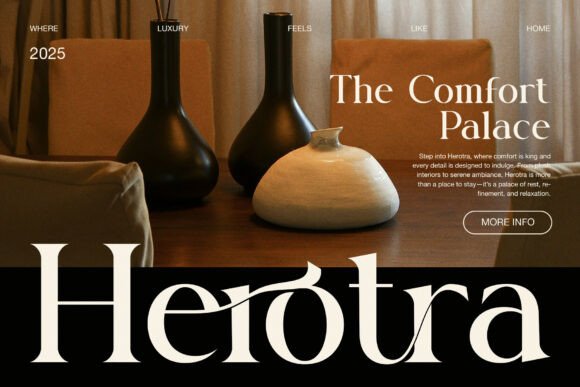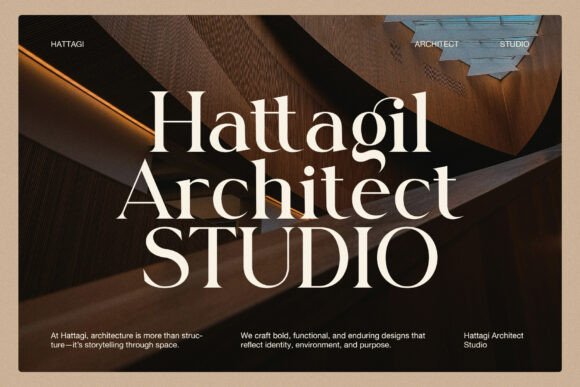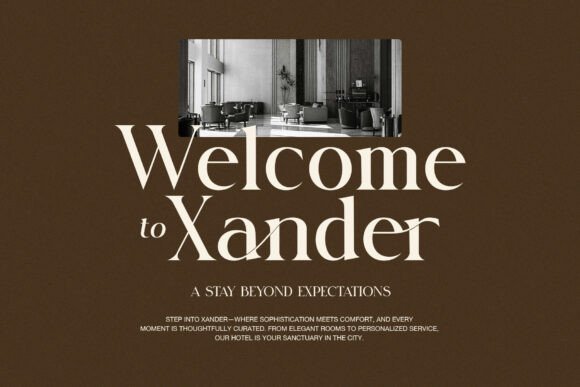
Gitrong Font
Introducing **Gitrong Elegant Serif Font**, a sophisticated and modern serif typeface that brings elegance and uniqueness to any design. With its meticulously crafted letterforms and graceful serifs, Gitrong effortlessly merges classic charm with contemporary appeal, making it the perfect choice for projects that demand both style and clarity.Whether you’re designing a standout **logo**, curating a high-end **brand identity**, or enhancing a **website**, Gitrong adds a touch of luxury and professionalism. Its versatile design makes it ideal for **magazines**, **advertisements**, and **product packaging**, where its elegant curves and strong structure command attention without compromising readability.Gitrong shines in the world of **fashion**, **boutiques**, and **luxury products**, where every detail counts. The font’s timeless appeal elevates **print layouts**, **product labels**, and **marketing materials**, making it an essential tool for brands seeking a polished and distinctive visual identity. Its sophisticated design also makes it a natural fit for the **food industry**, where it can be used to create elegant menus, product packaging, and branding that stands out on the shelf.Perfect for both **digital** and **print** media, Gitrong Elegant Serif Font offers endless creative possibilities. Whether you’re working on high-end branding, creating stunning layouts, or crafting compelling advertisements, Gitrong helps your designs communicate refinement and style. Embrace the beauty of Gitrong and take your projects to the next level with a font that speaks sophistication and elegance.